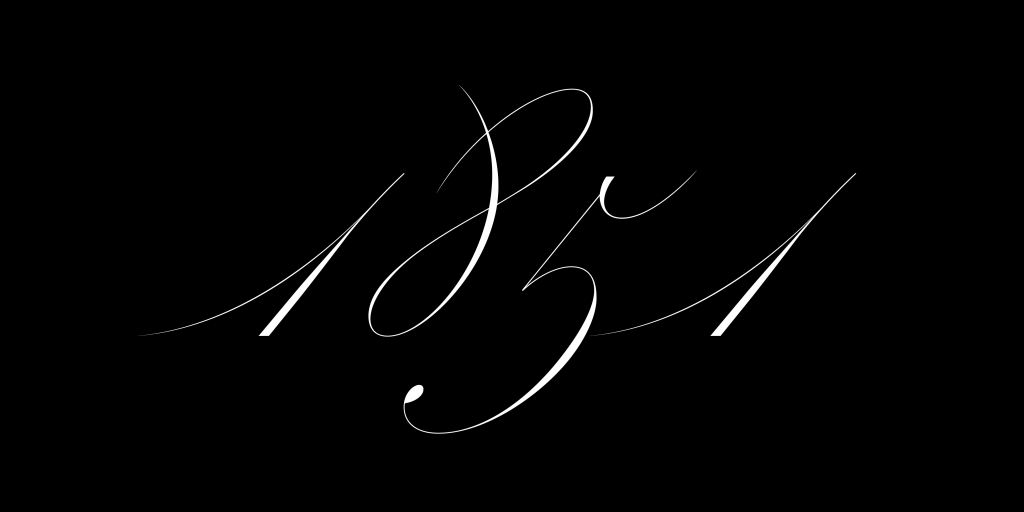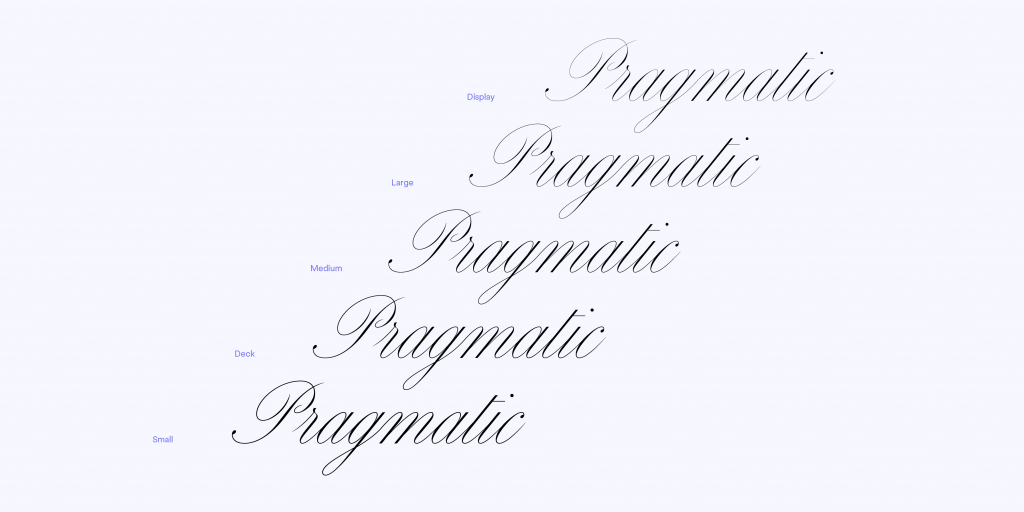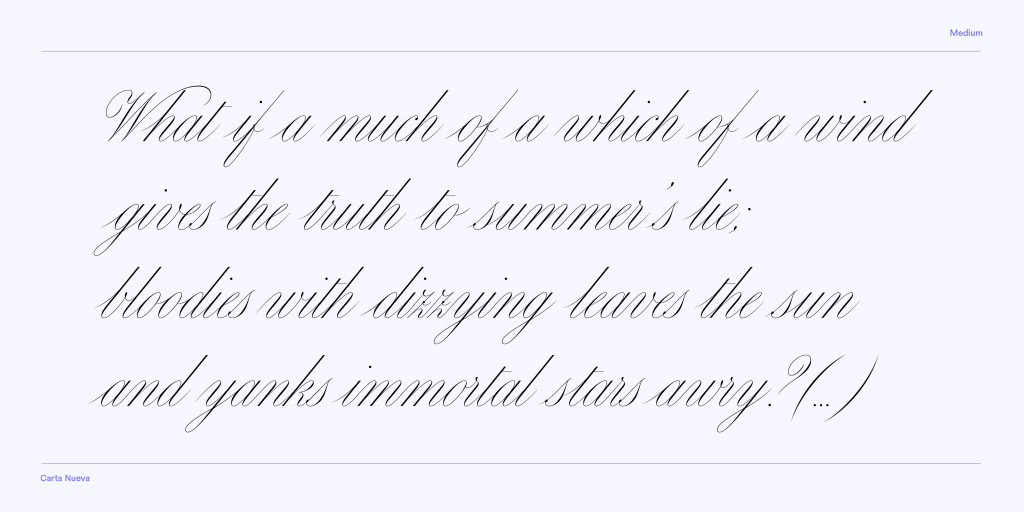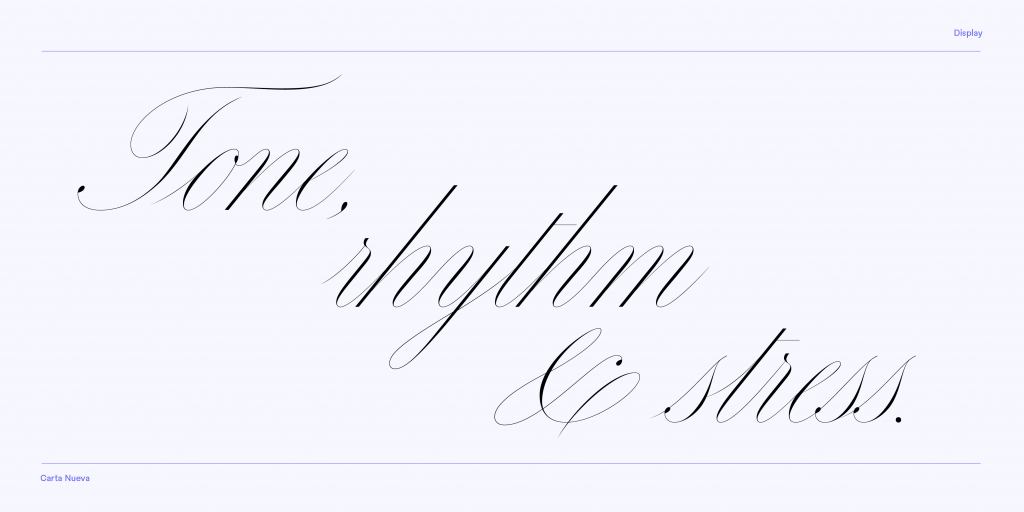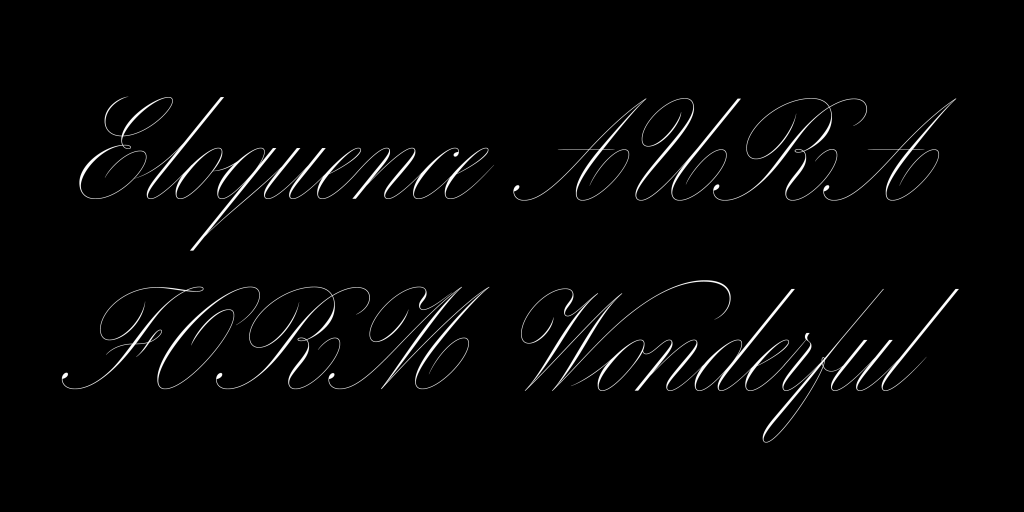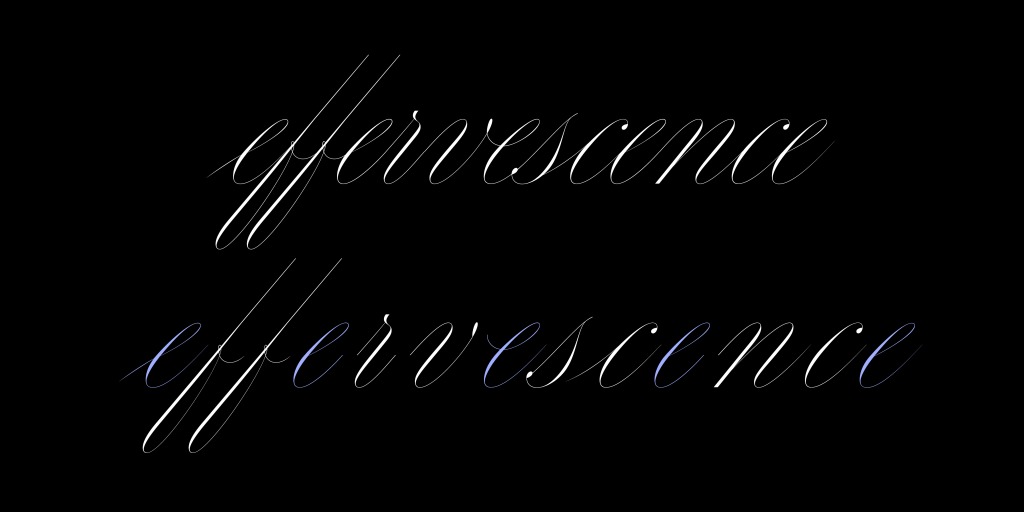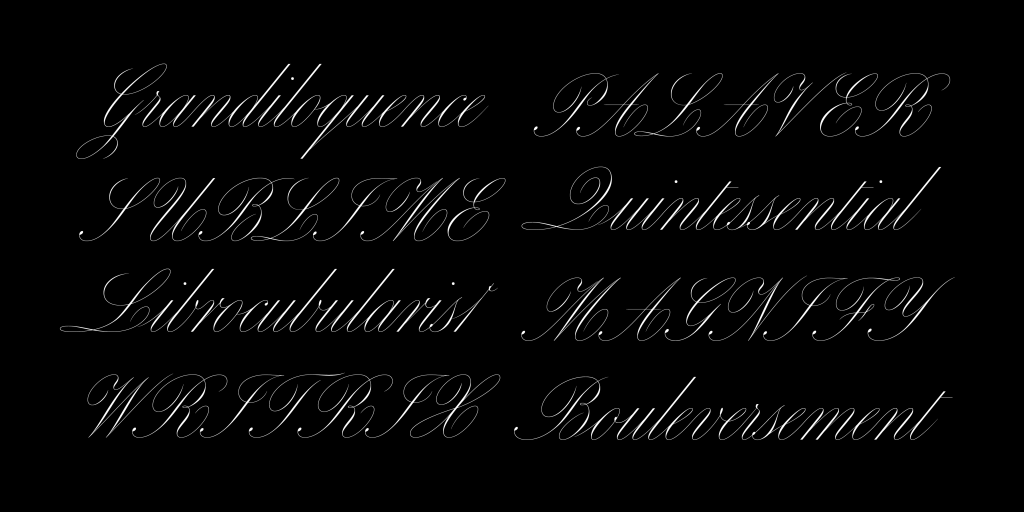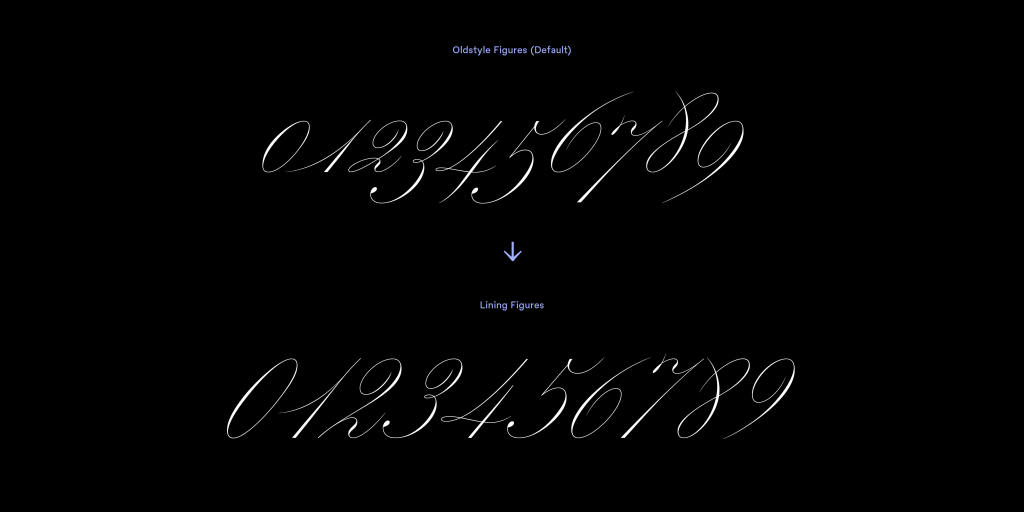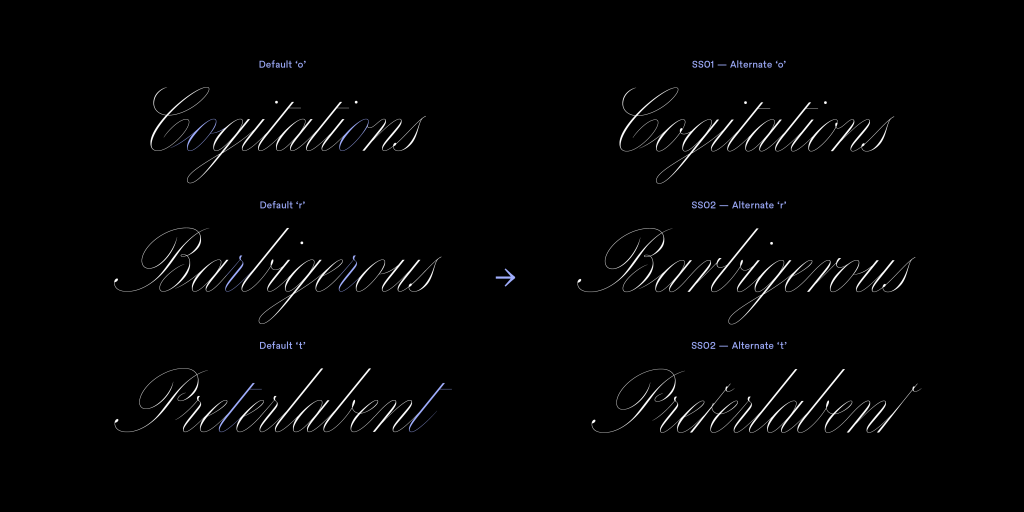
Name: Carta Nueva
Designer: My-Lan Thuong
Foundry: Sharp Type
Release Date: November 2020
Back Story: Type history 101: once upon a time, beautiful cursive handwriting was a fact of life. In the 19th and early 20th century, the grade-school taught Spencerian script (and its simplified cousin, the Palmer method) ensured that the ephemera of daily existence—a handwritten receipt from your plumber, or a cop’s entry on a crime blotter—were rendered in exquisite penmanship. Beautiful handwriting is now largely a forgotten art, and digital typefaces that attempt to recreate the feel of handwritten scripts often fall flat, lacking the grace and delicacy of their forbears.
Fortunately, all is not lost. Shortly after My-Lan Thuong joined Sharp Type, cofounders Lucas Sharp and Chantra Malee asked her to create a typeface based on the engraved lettering in a small antique booklet they’d found in Madrid. The name of the person who created that extraordinary copperplate calligraphy is lost to time, as the book bore just the place and date of publication (Barcelona, 1851). Despite their best efforts at research, the designers couldn’t find any other information about the printer, editor, or designer. “What Lucas and Chantra didn’t know then is that they were handing me my dream project,” says Thuong. “I had always wanted to design a cursive typeface, and I particularly love this style of calligraphy.”
Why’s it called Carta Nueva? One of the only words found on the mysterious booklet was “Carta,” faintly visible on the spine. “In Spanish, Carta means missive or map,” Thuong says. “We decided to add Nueva to it, following the typographic tradition of adding Neue or Next to a name, but this time in Spanish to match its origins.”
What are its distinguishing characteristics? Carta Nueva’s digital letterforms preserve the essence of its calligraphic origins—firm downward strokes establish a consistent rhythm, then become as light as air on upward strokes tapering to fine points. The hairlines almost disappear upon contact with the stems, requiring them to be drawn at 4096 units per em scale to capture every intricacy. Uppercase ornamental characters flaunt lively winding loops and arabesques.
As with any typeface conversant with history, there comes a point where the designer takes over to write her own finale. The source booklet contained only the standard alphabet, so Thuong envisioned what the remaining glyph set would look like, including punctuation, symbols, mathematical signs, and special characters. “Carta includes a complete character set and extended Latin support, so you can write a single name in Vietnamese, a headline in Polish, a poem in German or a long passionate love letter in Icelandic,” she says.
What should I use it for? Carta Nueva is a display font that comes in five optical sizes to suit a range of potential uses. Its extremely delicate hairlines invite typesetting at a dramatic scale to show off all the details and intricacies. Its handwritten origins also make it a candidate for more intimate writings (love letters/texts/emails?) while its formality adds a flourish to announcements as well.
What other typefaces do you like to pair it with? Copperplate and DH Bank Gothic both offer a square solidity that contrasts nicely with the looping airiness of Carta Nueva. It also looks great with a typewriter-style face such as Pitch.